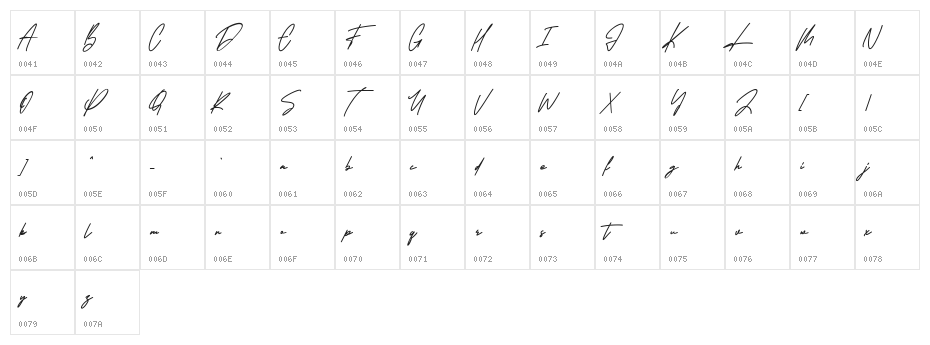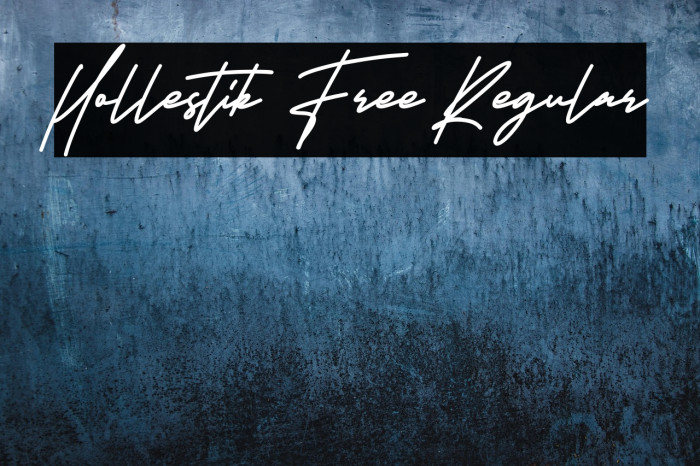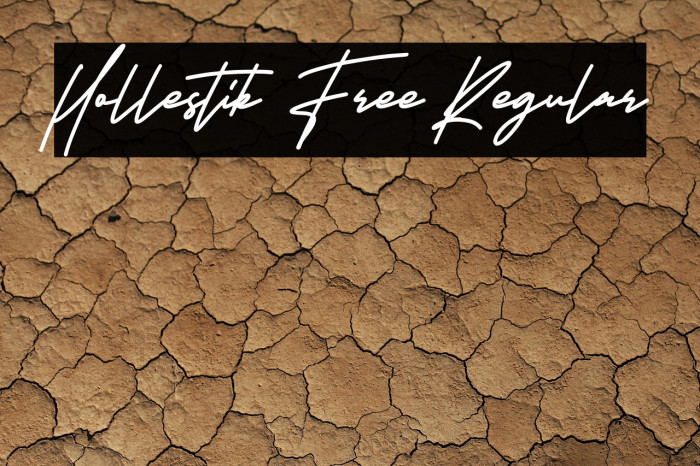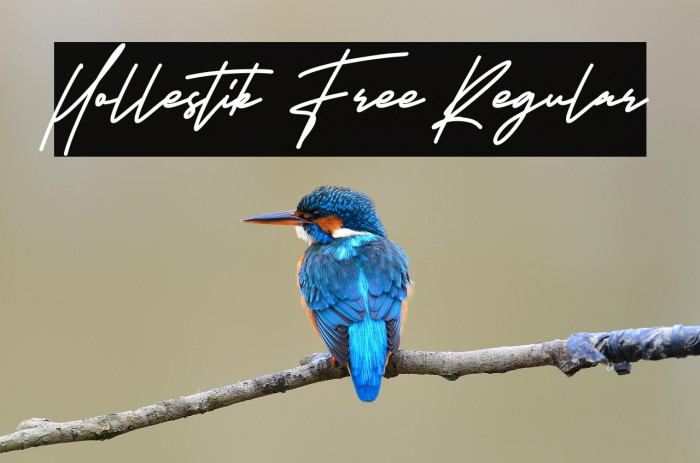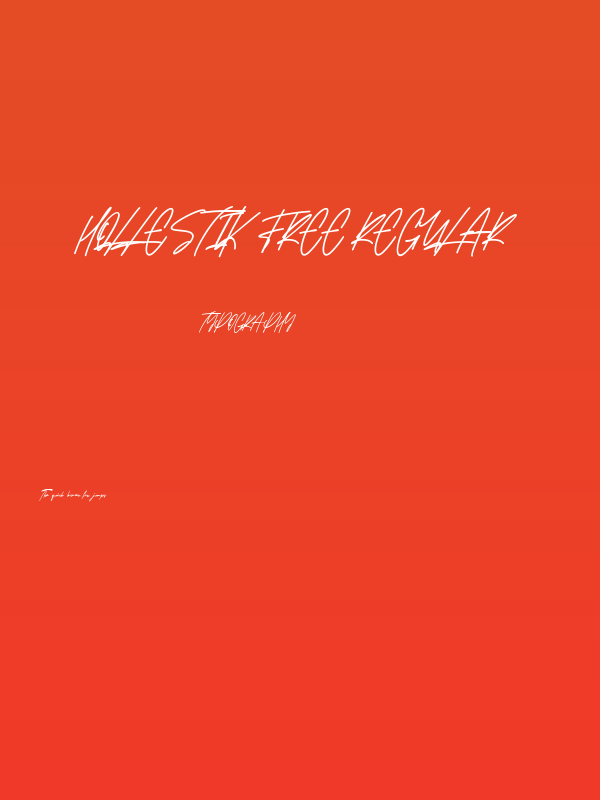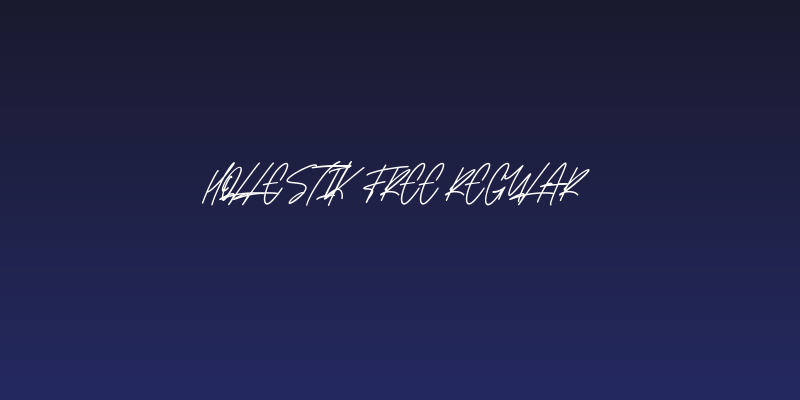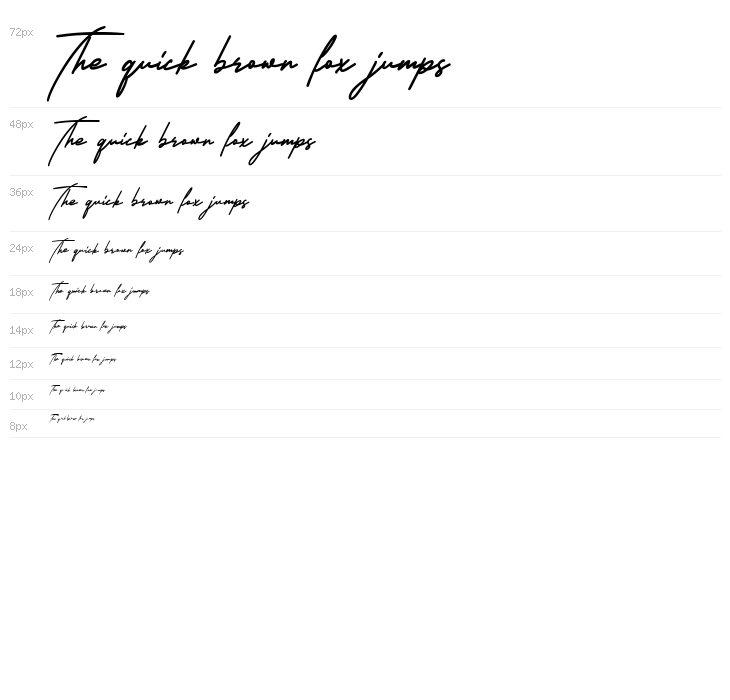
Hollestik Free Regular Font
Hollestik Free Regular Description
This font features a dynamic and energetic handwritten style, characterized by its fluid and continuous strokes. The letters are slightly slanted, giving it a casual yet sophisticated appearance. The uppercase letters are bold and expressive, while the lowercase letters maintain a consistent flow, enhancing readability. The overall design is reminiscent of a personal signature, making it ideal for projects that require a personal touch. The font's unique style is suitable for creative and artistic applications, offering a modern twist on traditional handwriting.
| Proposed Projects | Ideal for branding, invitations, greeting cards, and artistic projects that require a personal touch. |